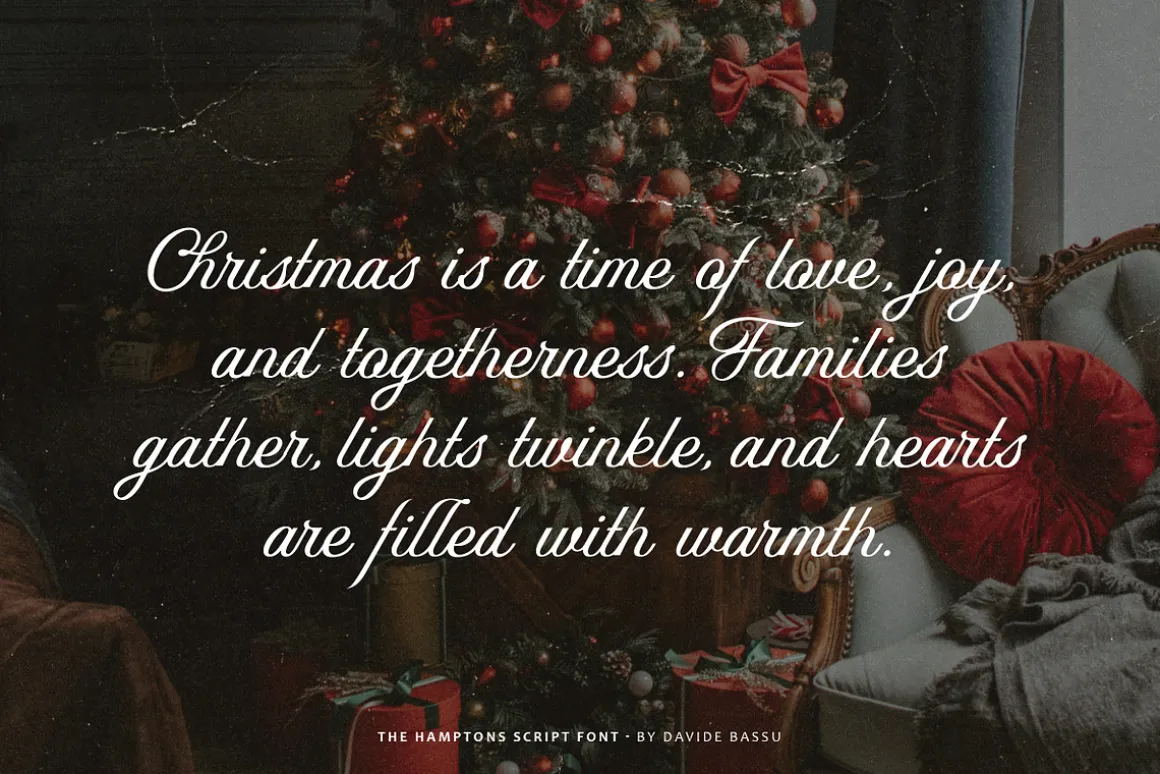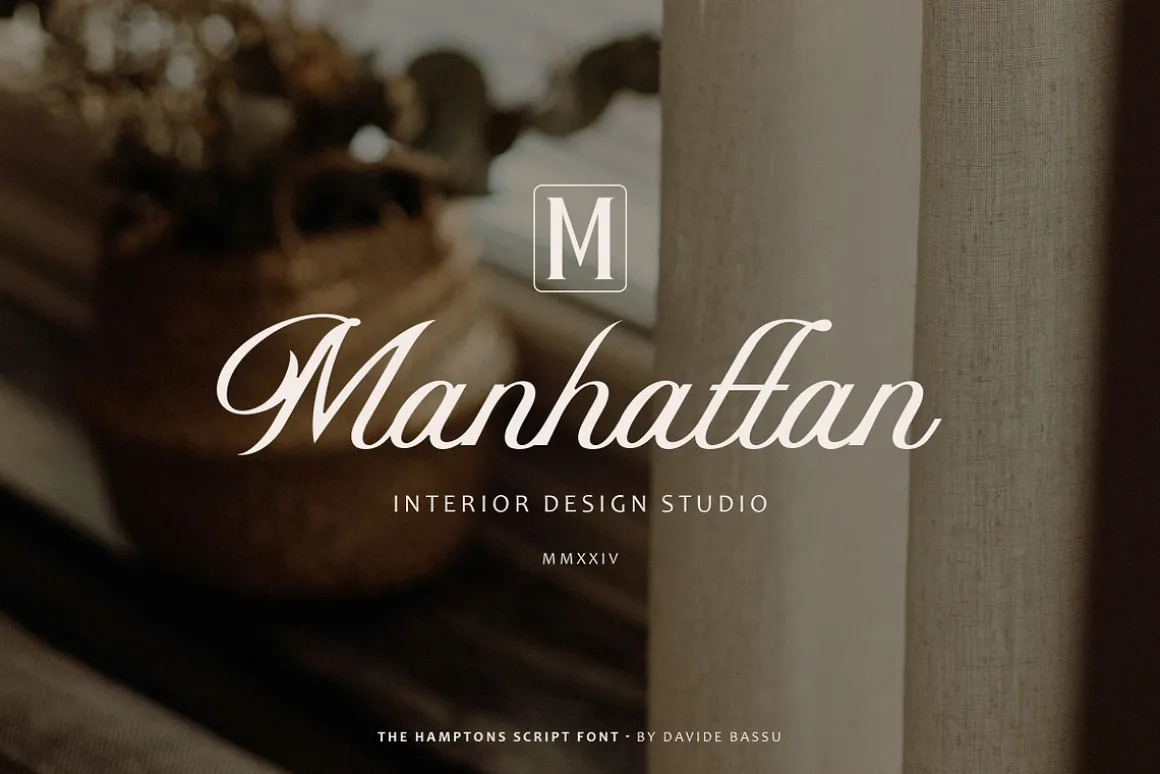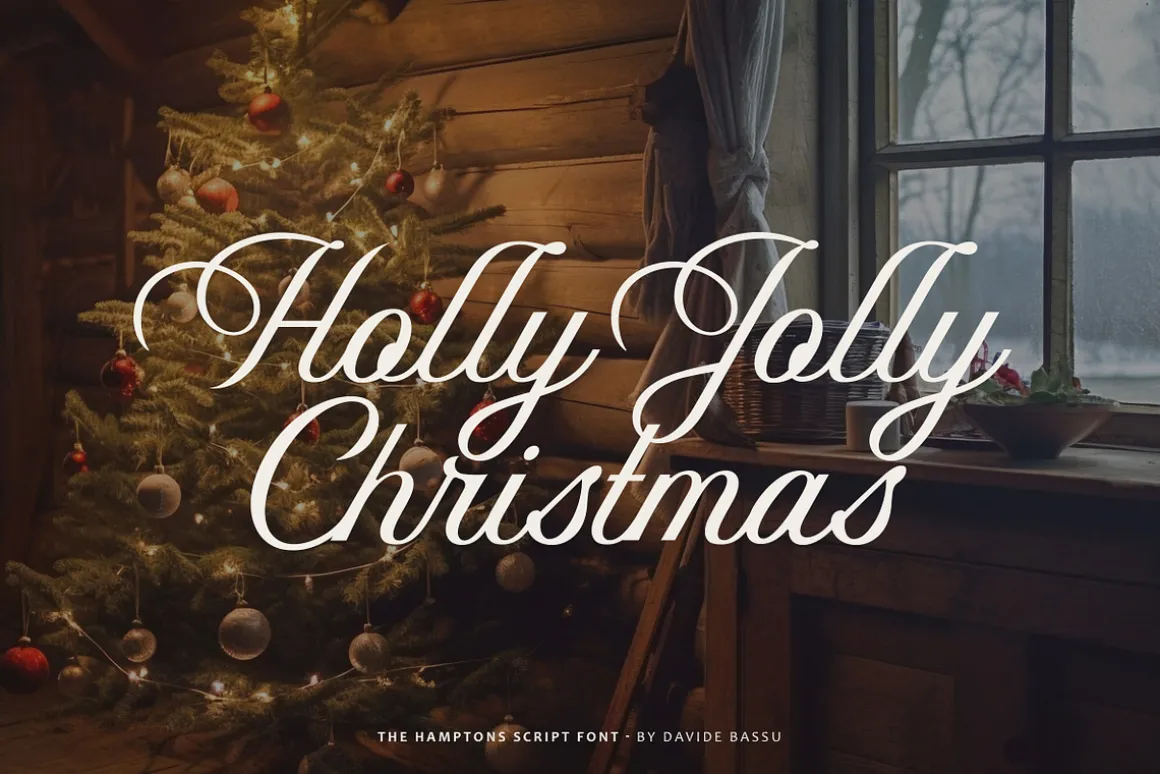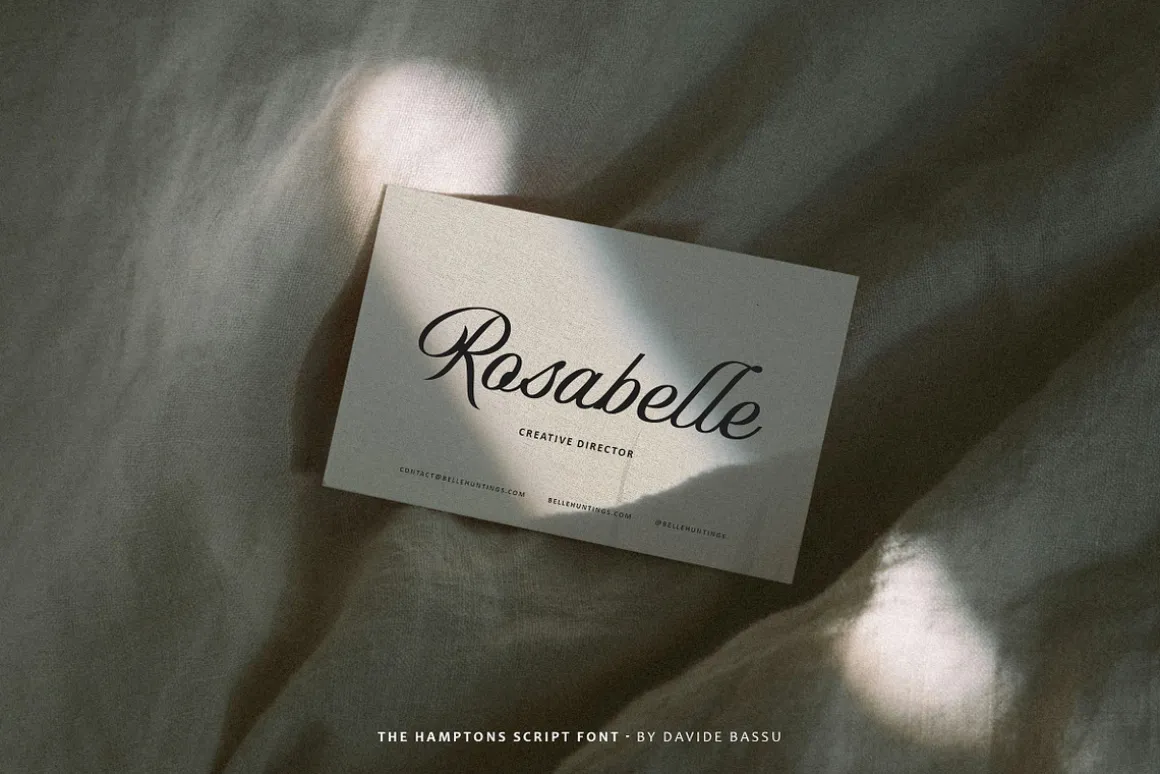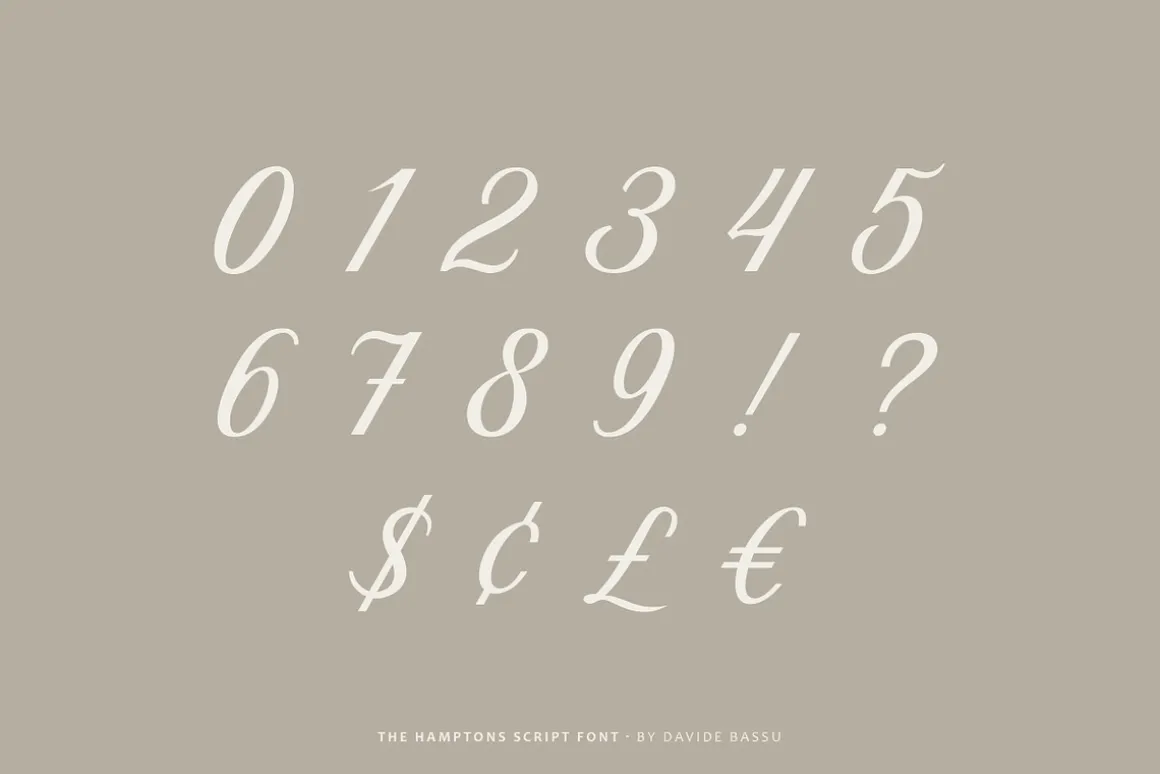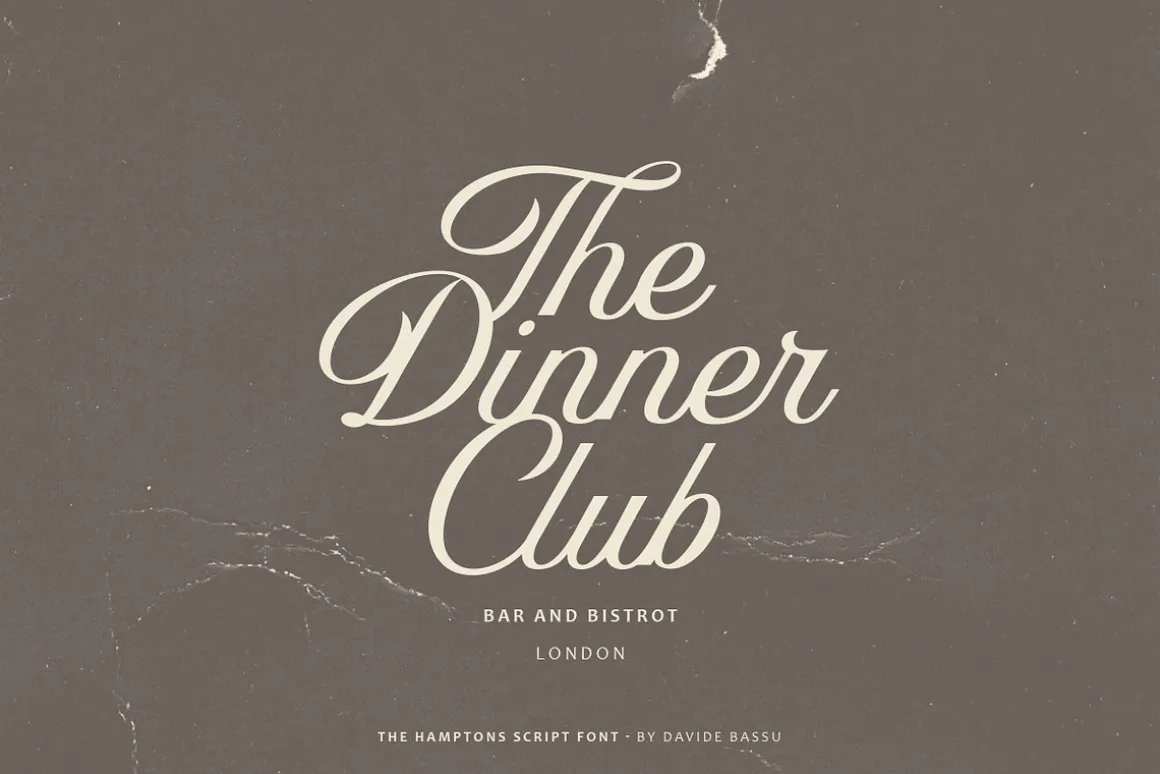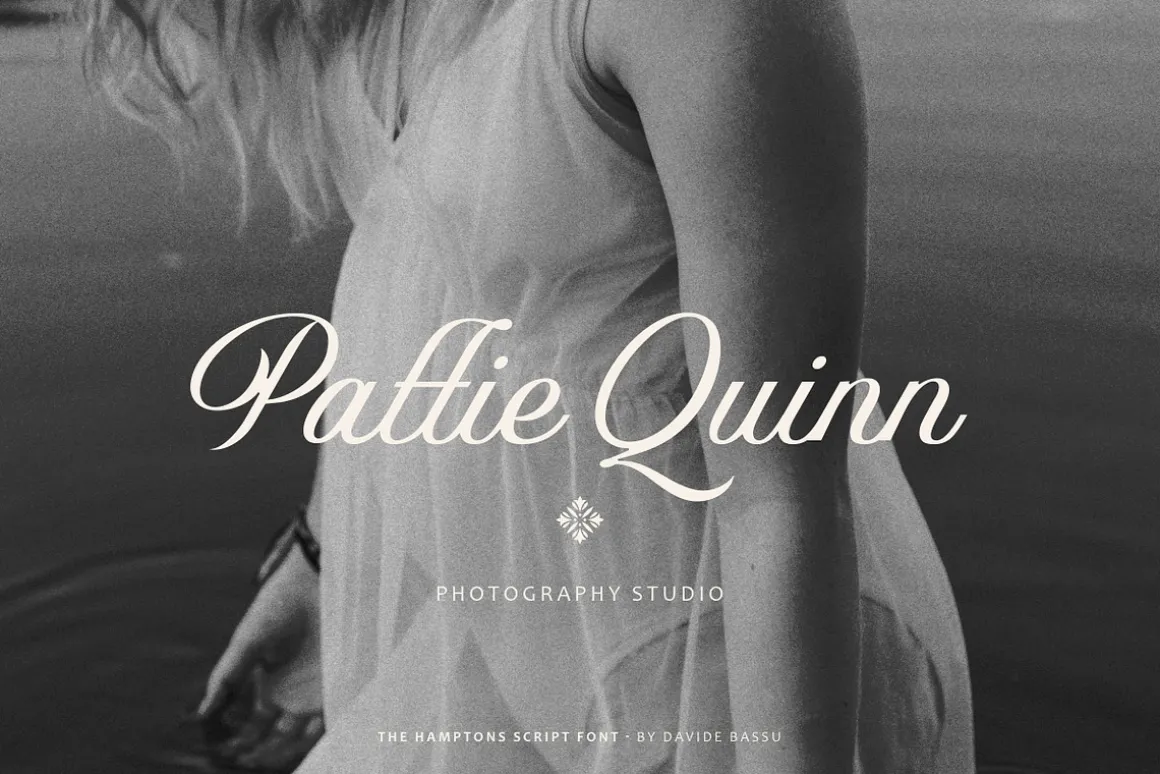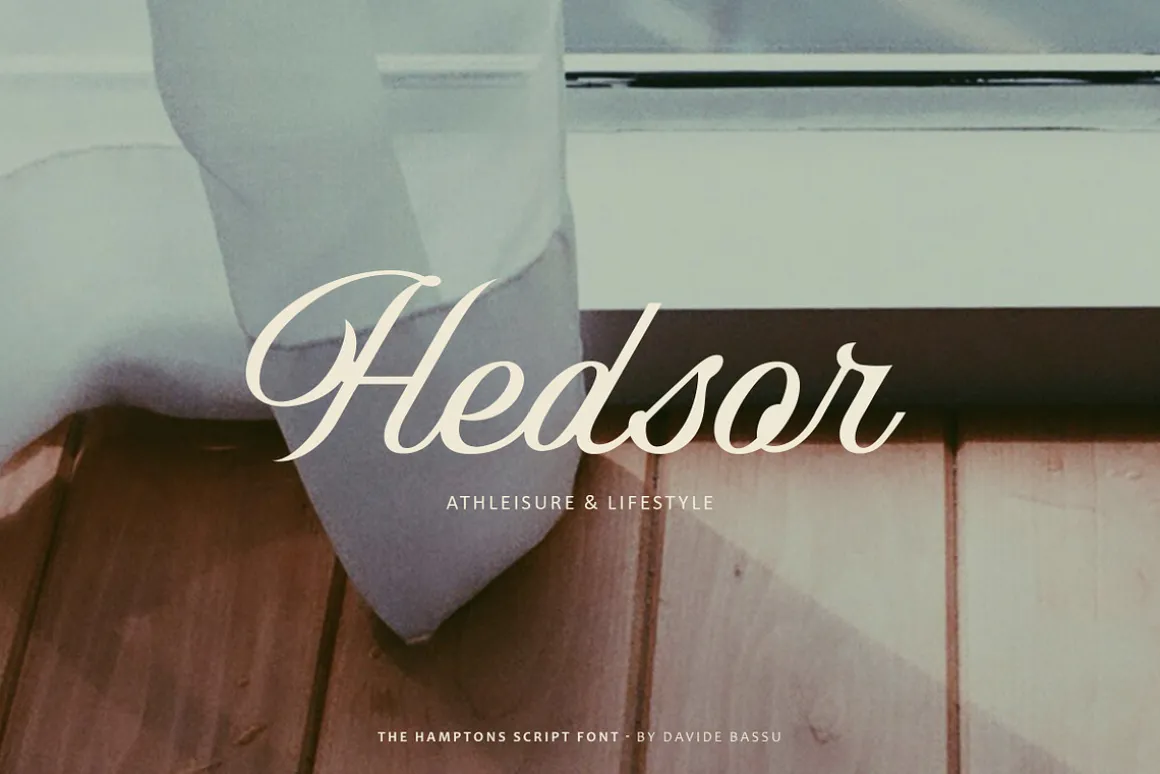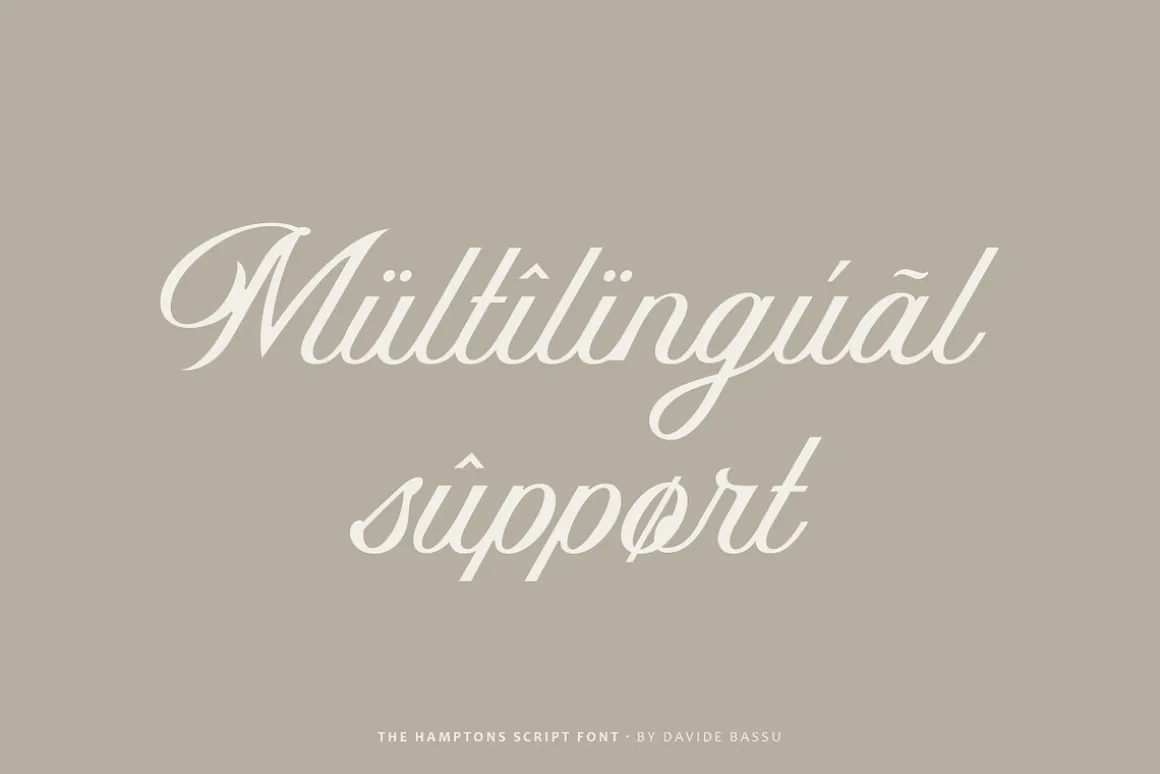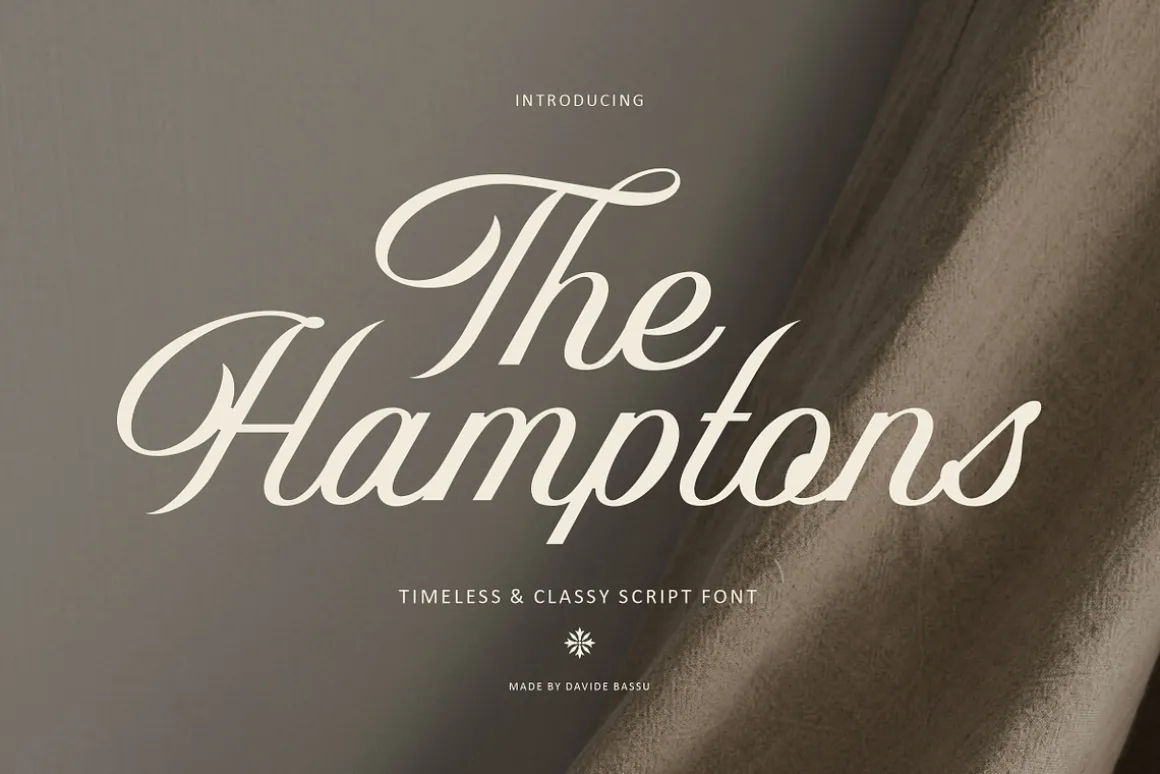
The Hamptons is a sophisticated and timeless script font, perfect for adding a touch of refinement to projects like brand identity, elegant invitations, product labels, clothing design, and more.
With stylistic alternates and unique ligatures integrated into its OpenType features, this font offers great versatility and creative freedom for any design.